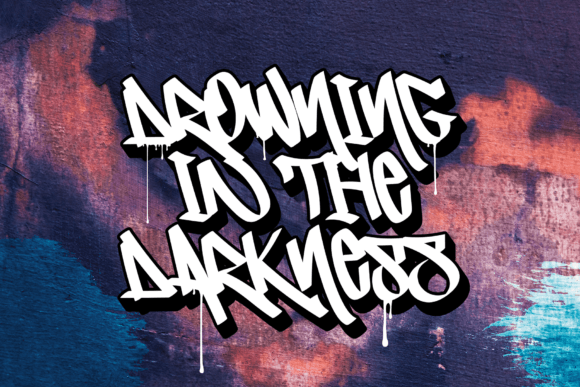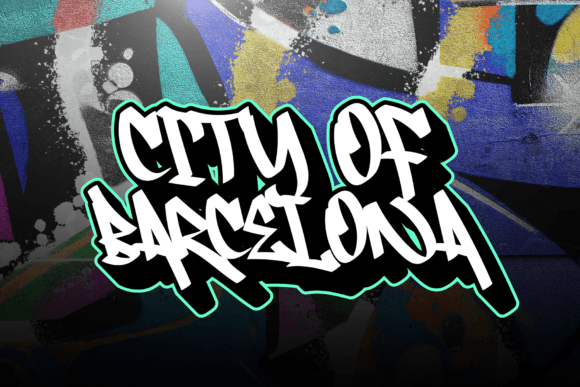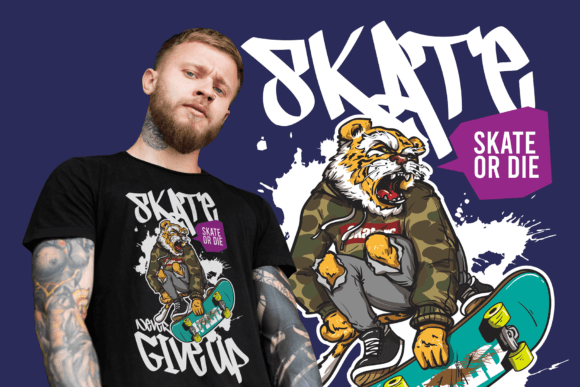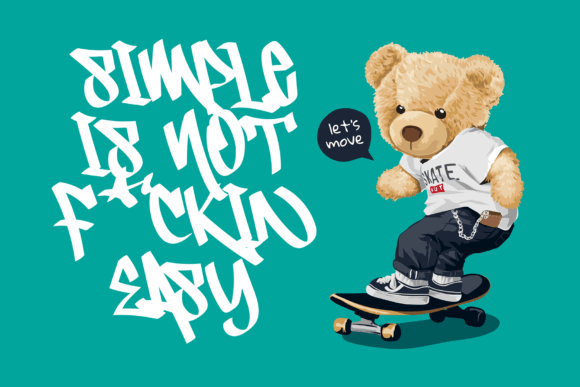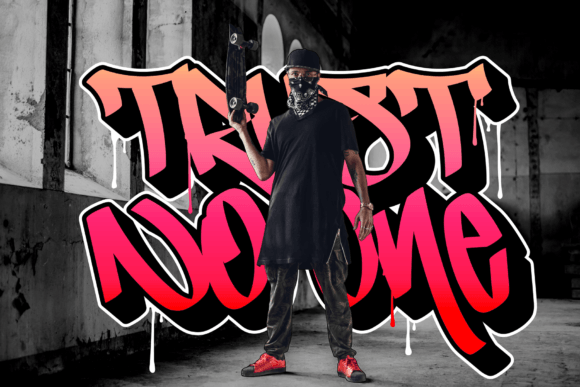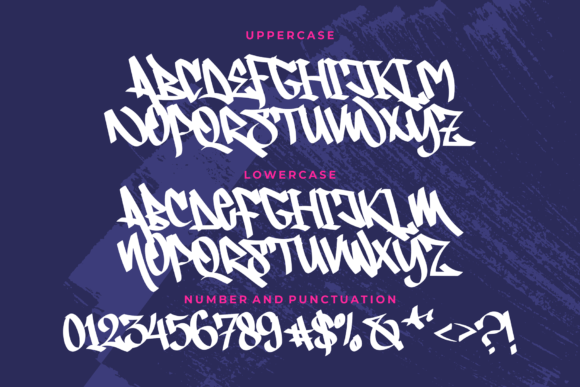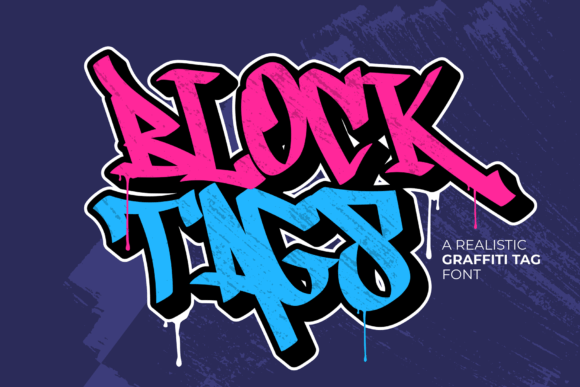
Unleash Your Creativity with Block Tags Font: The Ultimate Graffiti Display Font
Are you a designer, crafter, or artist looking for a font that can add a touch of realism and edginess to your creative projects? Look no further than Block Tags Font, a specially crafted graffiti display font designed to make your creative life easier. In this article, we’ll dive into the features and benefits of Block Tags Font, and explore how it can elevate your designs to the next level.
What is Block Tags Font?
Block Tags Font is a realistic graffiti display font that is perfect for creating bold and eye-catching designs. Its unique and authentic graffiti style makes it ideal for a wide range of applications, from packaging and logos to labels, posters, shirt designs, bulletins, typography, and more.
Key Features of Block Tags Font
• Realistic Graffiti Style: Block Tags Font boasts a realistic graffiti style that adds a touch of authenticity to your designs.
• Ease of Use: The font is designed to be easy to use, making it perfect for designers and crafters of all skill levels.
• Versatility: Block Tags Font is suitable for a wide range of applications, from packaging and logos to labels, posters, shirt designs, bulletins, typography, and more.
• High-Quality Design: The font is crafted with high-quality design principles in mind, ensuring that your designs look professional and polished.
Benefits of Using Block Tags Font
So, why should you choose Block Tags Font for your creative projects? Here are just a few benefits of using this amazing font:
• Adds Edginess to Your Designs: Block Tags Font adds a touch of edginess and realism to your designs, making them stand out from the crowd.
• Saves Time: The font is designed to be easy to use, saving you time and effort in the design process.
• Increases Creativity: With Block Tags Font, you can experiment with different design ideas and styles, unlocking your full creative potential.
• Perfect for Branding: The font is ideal for creating logos, labels, and other branding materials that require a bold and eye-catching design.
Who Can Benefit from Block Tags Font?
Block Tags Font is perfect for a wide range of designers, crafters, and artists, including:
• Graphic Designers: Graphic designers can use Block Tags Font to create bold and eye-catching designs for clients.
• Crafters: Crafters can use the font to create unique and personalized designs for their handmade products.
• Artists: Artists can use Block Tags Font to add a touch of realism and edginess to their artwork.
• Small Business Owners: Small business owners can use the font to create bold and eye-catching branding materials, such as logos and labels.
Tips and Tricks for Using Block Tags Font
Here are a few tips and tricks for getting the most out of Block Tags Font:
• Experiment with Different Colors: Block Tags Font looks great in a variety of colors, so don’t be afraid to experiment and find the perfect color scheme for your design.
• Use it with Other Fonts: Block Tags Font pairs well with other fonts, so try using it with a sans-serif font for a bold and eye-catching design.
• Pay Attention to Kerning: Make sure to pay attention to kerning when using Block Tags Font, as it can make a big difference in the overall look of your design.
Font Name Block Tags Font
Author figuree studio
In conclusion, Block Tags Font is a powerful and versatile graffiti display font that can add a touch of realism and edginess to your creative projects. With its ease of use, high-quality design, and versatility, it’s perfect for designers, crafters, and artists of all skill levels. Whether you’re looking to create bold and eye-catching branding materials, unique and personalized designs, or add a touch of edginess to your artwork, Block Tags Font is the perfect choice.